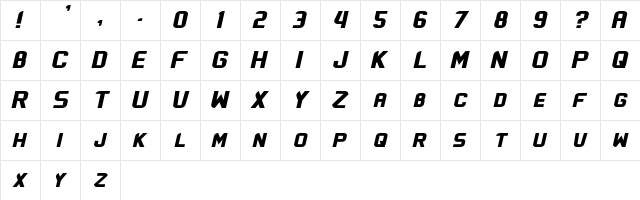
Flatwheat Italic
Design Context for Flatwheat Typeface
Flatwheat takes a measured approach to typography — its balanced proportions and neutral character make it a reliable workhorse for both digital and print work. The slanted form adds forward momentum and visual energy.